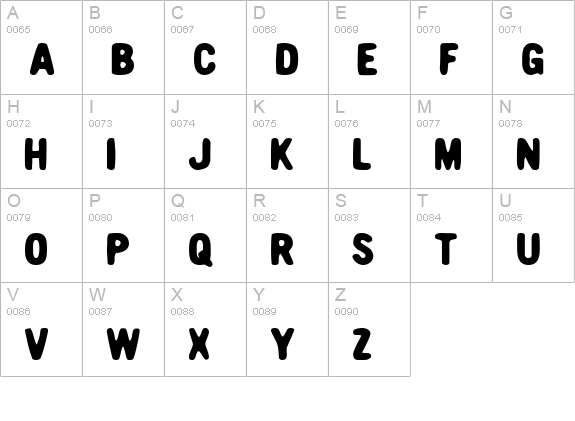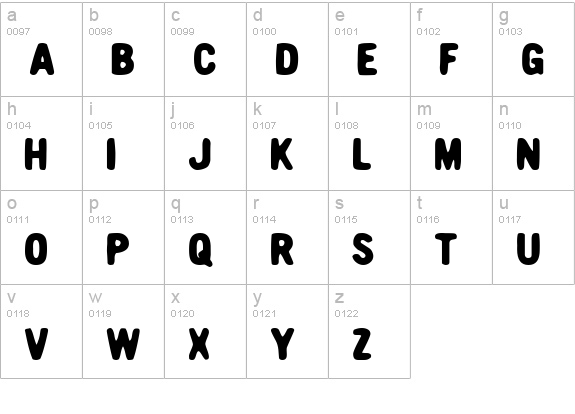
Nicotine Font Details
Nicotine font is a stylish and modern typeface that exudes sophistication and elegance. With its sleek lines and contemporary design, this font is perfect for adding a touch of class to any project. Whether you are creating a logo, designing a website, or working on a branding project, Nicotine font will elevate your work to the next level. What sets Nicotine font apart is not only its striking appearance but also the fact that it is available for free download at FontsMarket.com. This means that you can use this high-quality font in your projects without having to worry about any licensing fees or restrictions. Don't miss out on the opportunity to enhance your designs with the sleek and stylish Nicotine font, now freely available for download at FontsMarket.com.